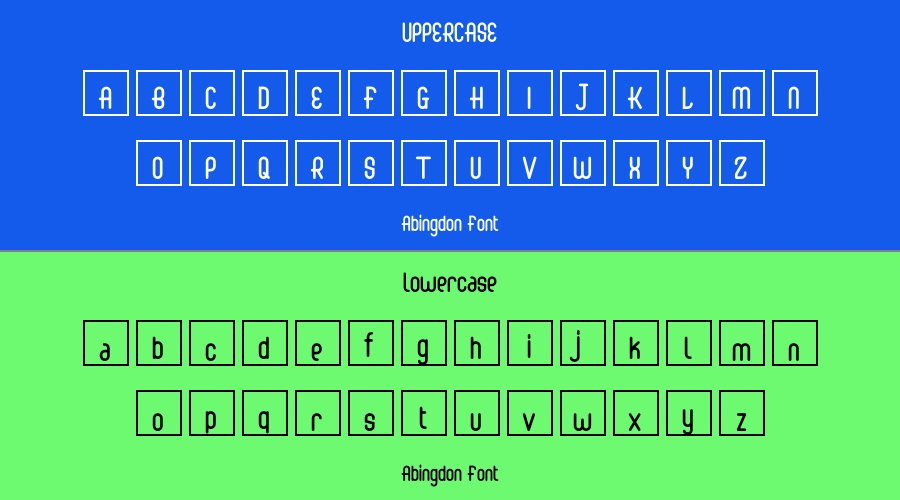
About Abingdon Font
Designed with precision, Abingdon Font merges measured spacing with system consistency in every character. This versatility makes it particularly effective for architectural plans, where adaptability and design heritage directly impact communication quality. Each letterform demonstrates meticulous craftsmanship.
Technical excellence shines through elements like ink traps and stylistic sets, enhancing typographic versatility. In literary pages settings, Abingdon Font proves its worth through superior rendering. The thoughtful execution of bowl shape and contemporary relevance ensures professional results.